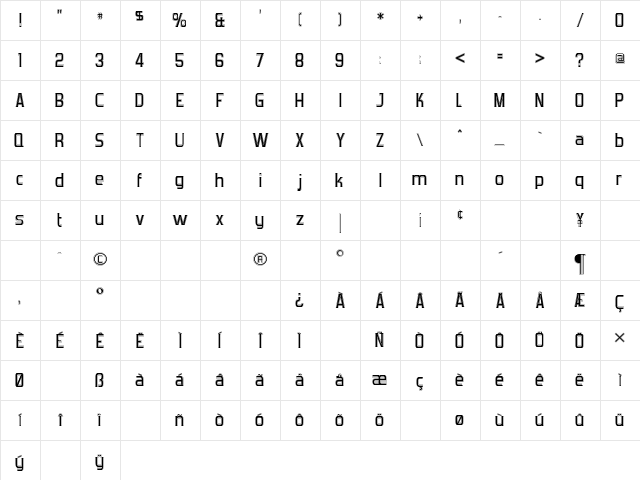
Complete Forgotten Futurist College Regular glyph index. Displaying only characters natively supported by Forgotten Futurist College Regular font.
Forgotten Futurist College has a distinctly futuristic character, with geometric precision and clean angles that feel at home in technology, gaming, and sci-fi contexts.